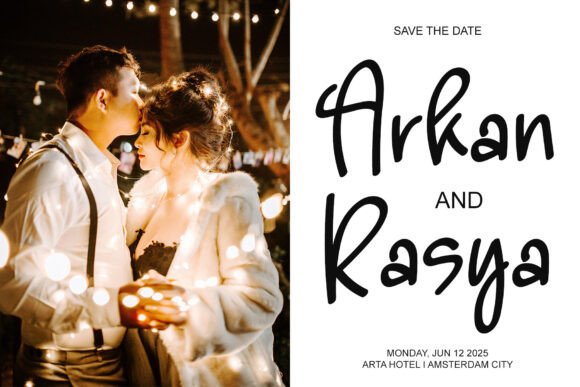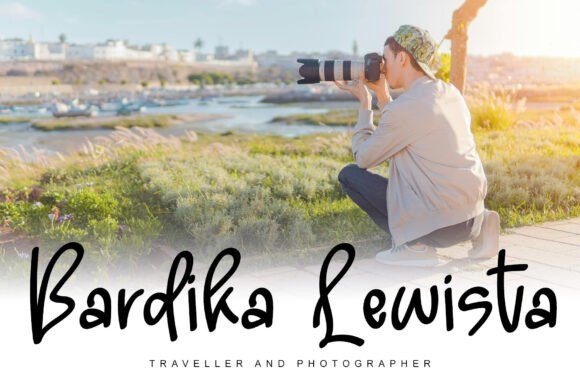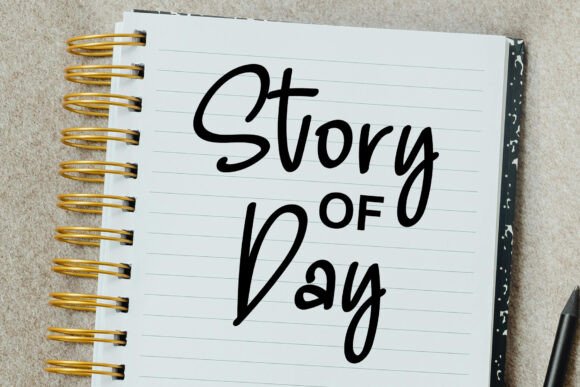
Beside Signature Font
Beside Signature fonts are commonly used in branding, advertising, and digital media, where typography plays a key role in setting the tone and personality of a design. Because of their distinctive nature, display fonts should be used strategically to maintain clarity and effectiveness.